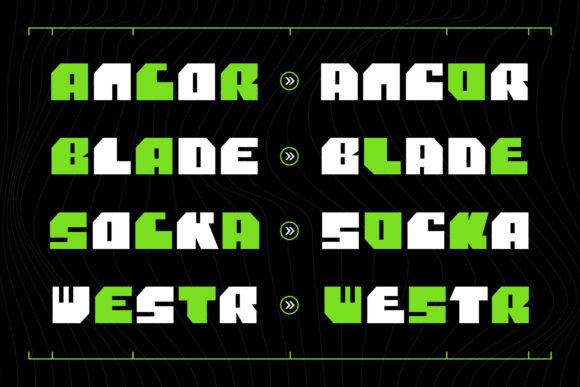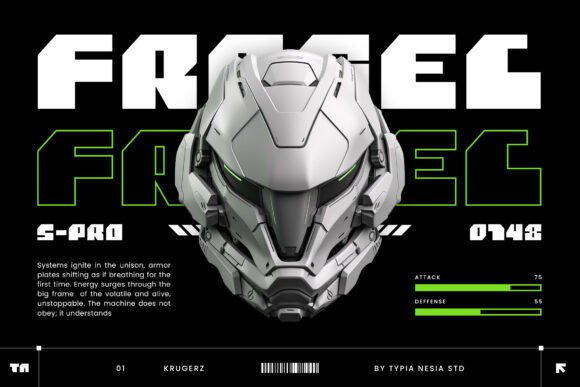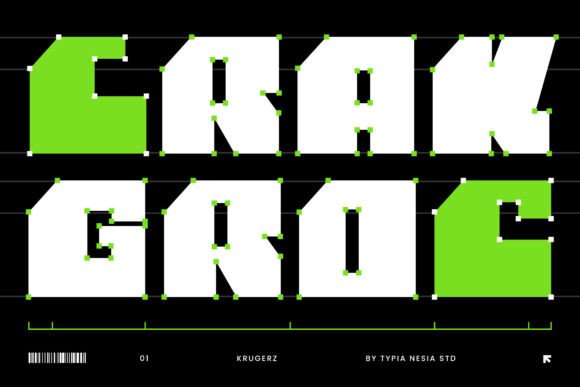
Introduction to Krugerz Font
Have you ever been stuck on a creative project, staring at a blank canvas, desperately searching for that perfect font to give your design the boost it needs? It’s a familiar feeling for many designers, and it’s what makes discovering a high-quality font like Krugerz Font so exhilarating. This modern, bold sans-serif font is a game-changer, offering a unique blend of futuristic and geometric elements that’s sure to elevate your design to the next level.
As a valuable resource for designers, Krugerz Font is perfect for branding, advertising, and gaming visuals, among other applications. Its clean, structured design creates a strong sense of control and modernity, making it an ideal choice for creative projects that require a bold, aggressive, and futuristic tone. With its free download option, you can experience the full potential of this stunning font and take your designs to new heights.
Key Features of Krugerz Font
- High-quality font design suitable for various creative projects, including graphic design, digital art, and publishing.
- Designed with a unique aesthetic, featuring a mix of modern and vintage elements, making it ideal for projects that require a distinctive look.
Honest Review: Krugerz Font
As a designer, I’m always on the lookout for high-quality design resources that can elevate my creative projects. Recently, I stumbled upon the Krugerz Font, and I’m excited to share my honest review with you.
- ✨ Unique and quirky design style that adds a touch of personality to any project
- ✨ High quality and crisp typography that’s perfect for digital and print designs
- ✨ Transparent background, making it easy to customize and integrate into any design
Any limitations:
- ⚠️ Limited character set, which may not be ideal for extensive typing
- ⚠️ Not suitable for small text sizes, as it may become difficult to read
Overall, I’m impressed with the Krugerz Font. Its unique design style and high quality make it a great addition to any designer’s toolkit. While it may have some limitations, it’s still a valuable resource for creative projects. I’d definitely recommend it to designers looking for a bold and eye-catching font.
Tips for Getting the Most Out of Krugerz Font
To get the most out of the Krugerz Font, use it in combination with a transparent background to create visually appealing designs. You can also experiment with different font sizes and styles to add emphasis to your text.
The Krugerz Font is ideal for a variety of creative projects, including logos, graphics, and presentations. It’s also great for creating social media graphics, flyers, and brochures.